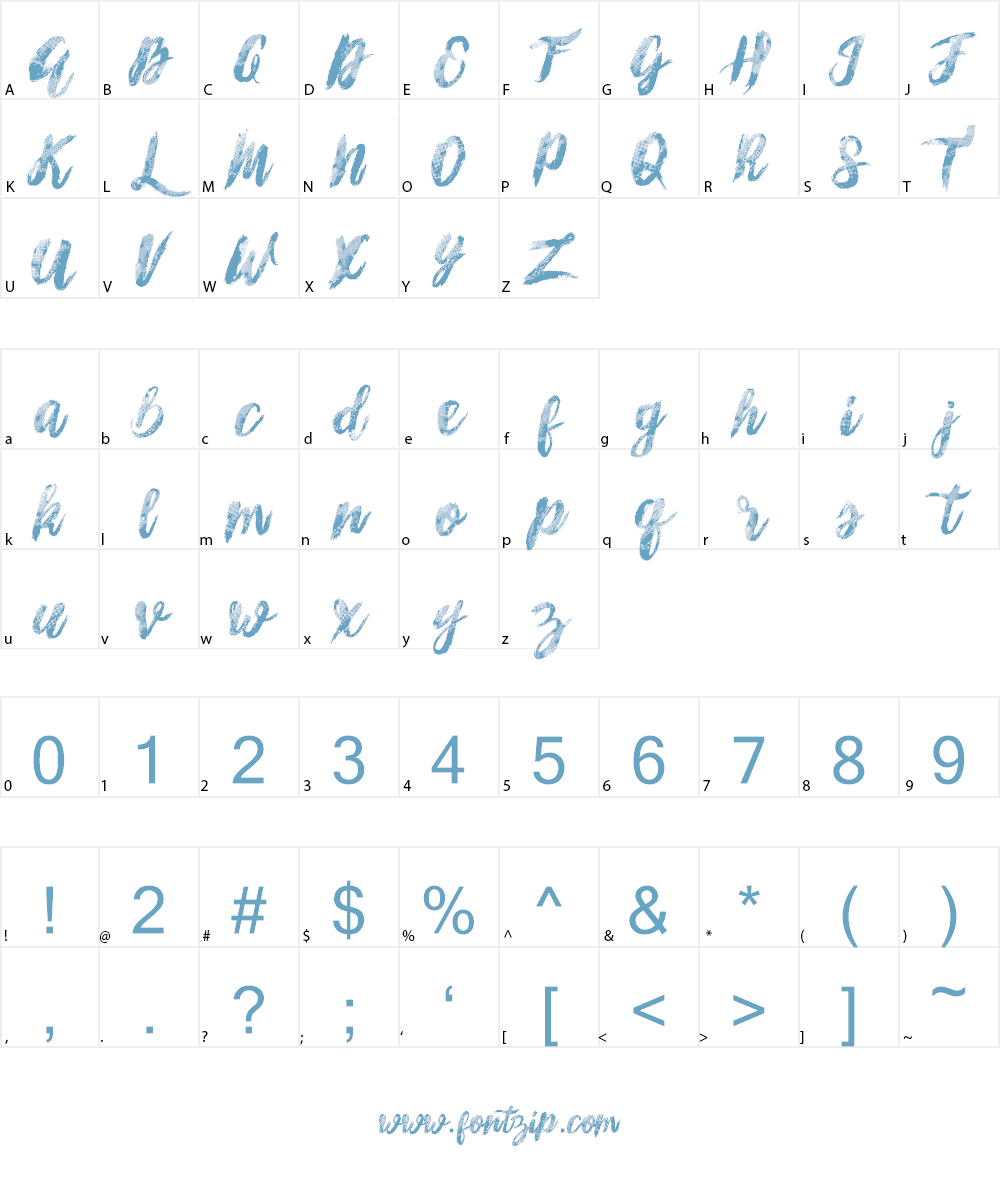
Introducing - SUNSHINE MELODY -
Handwritten Script font style with a very unique effects, textured perfectly for your brand, photography, and other art.